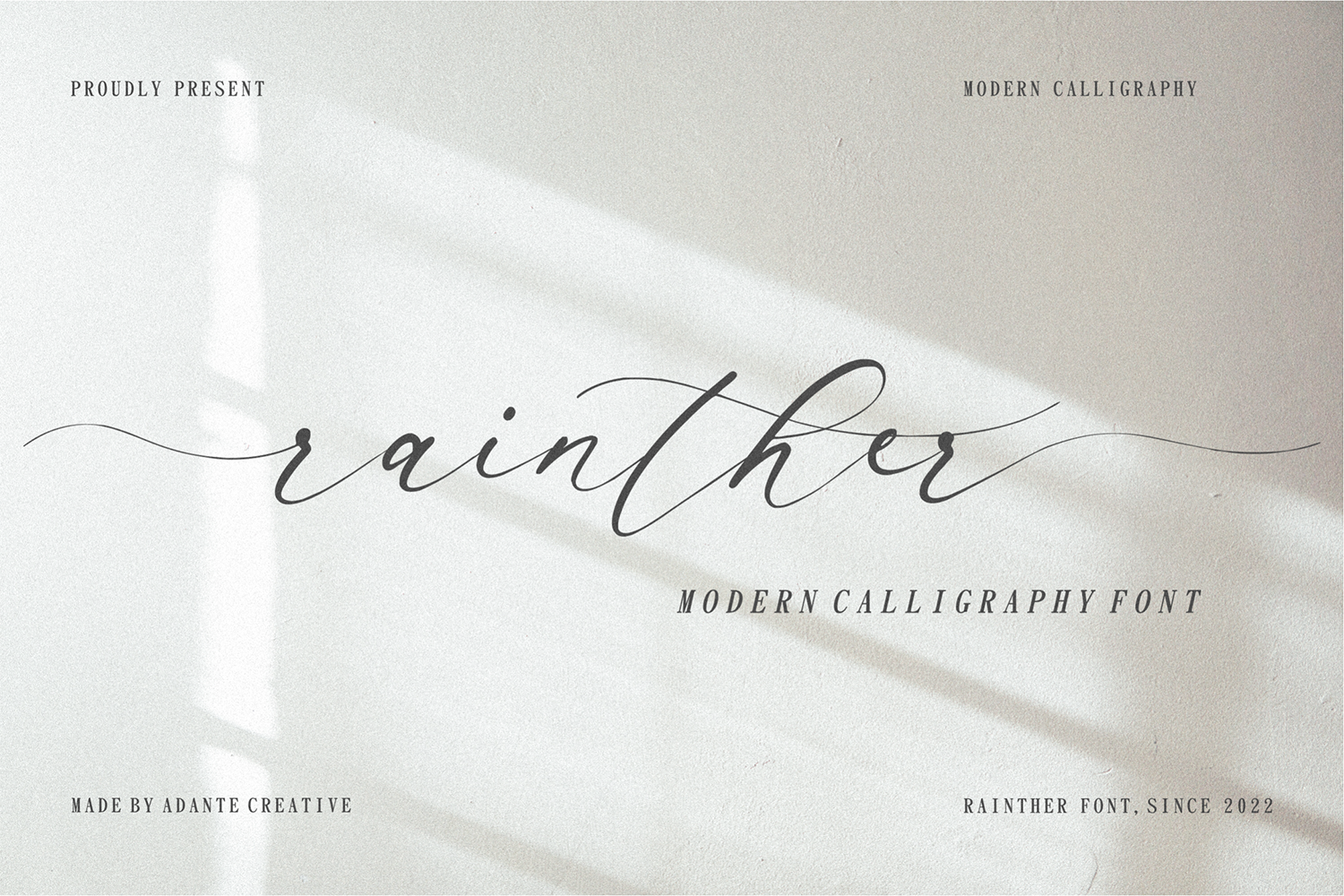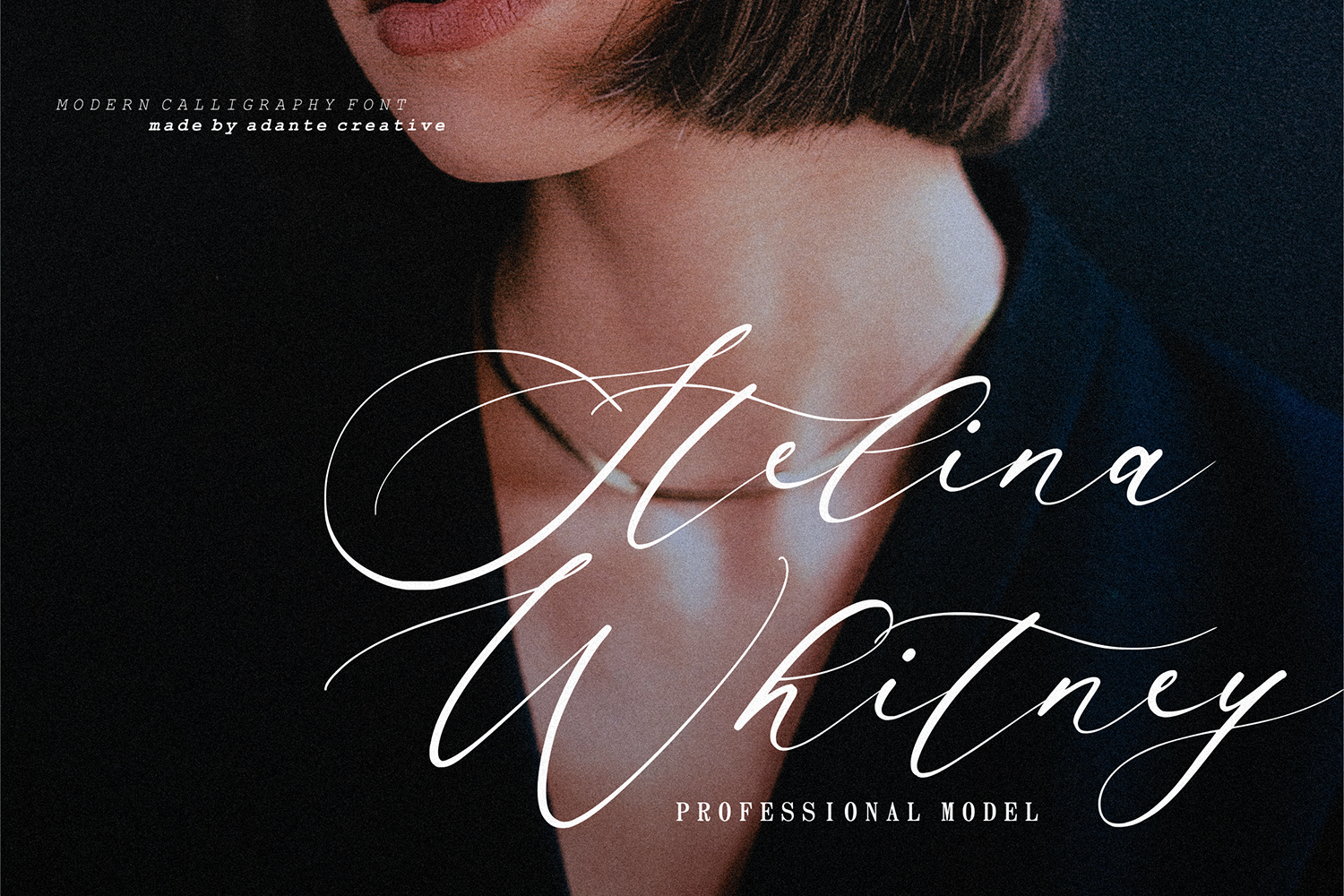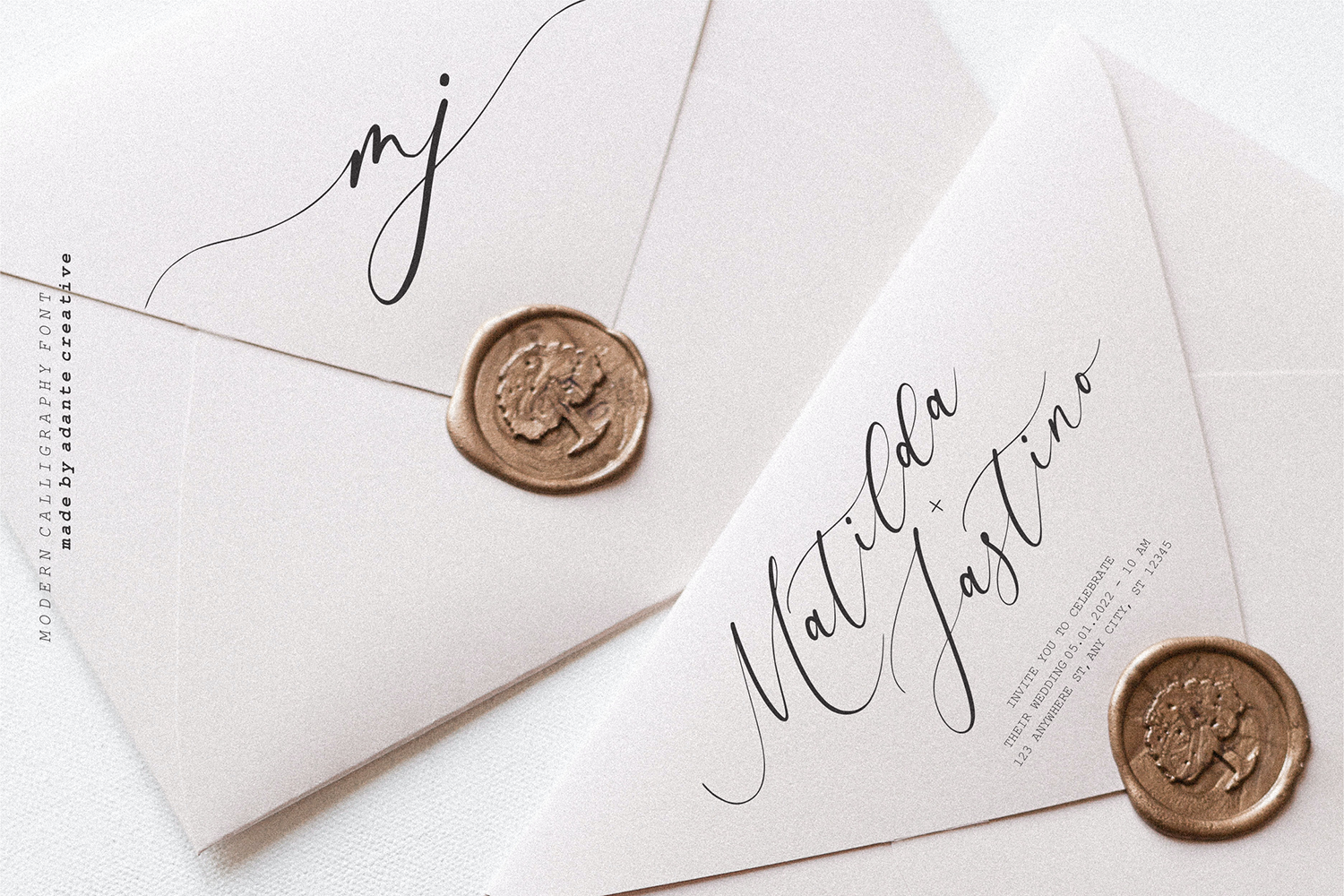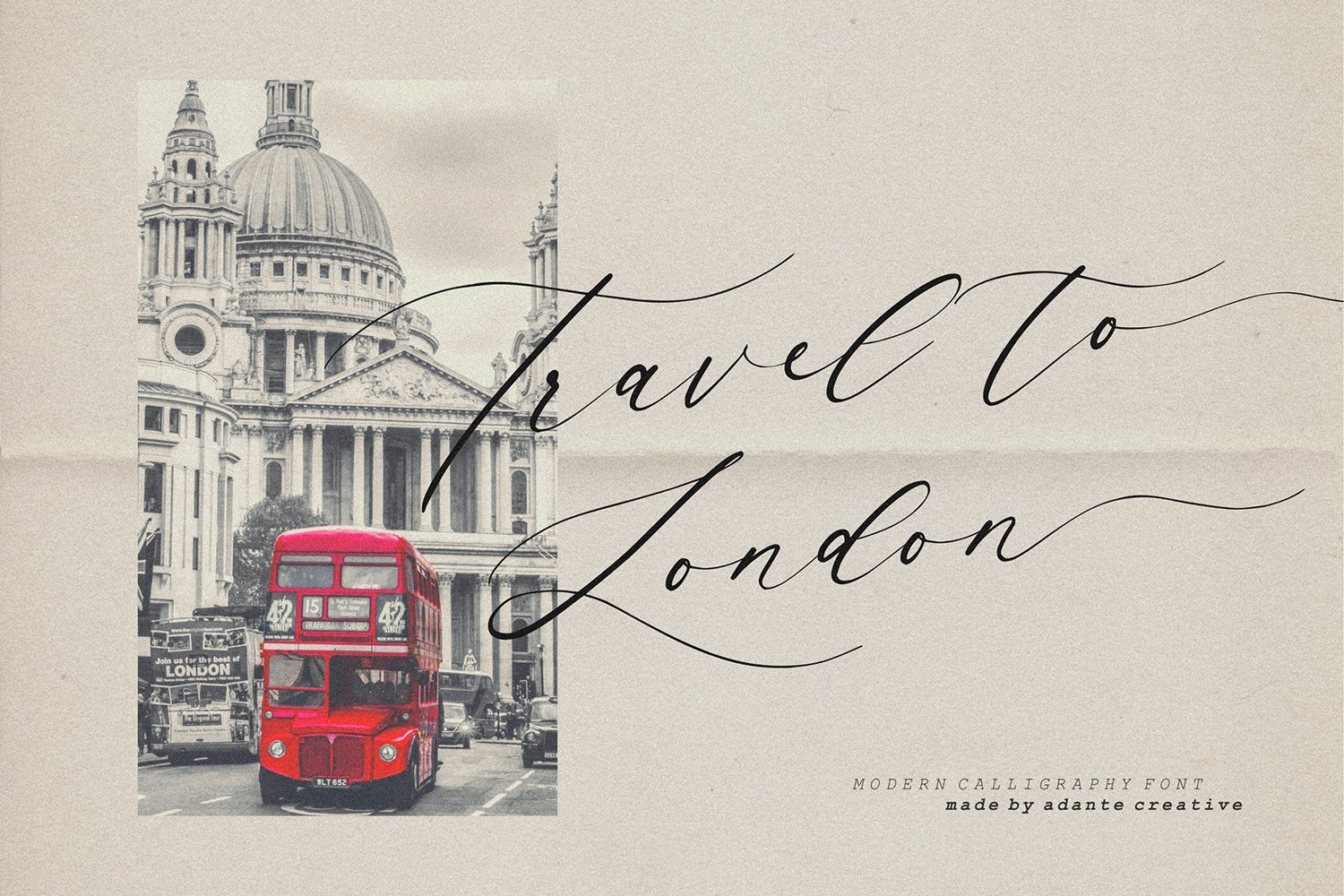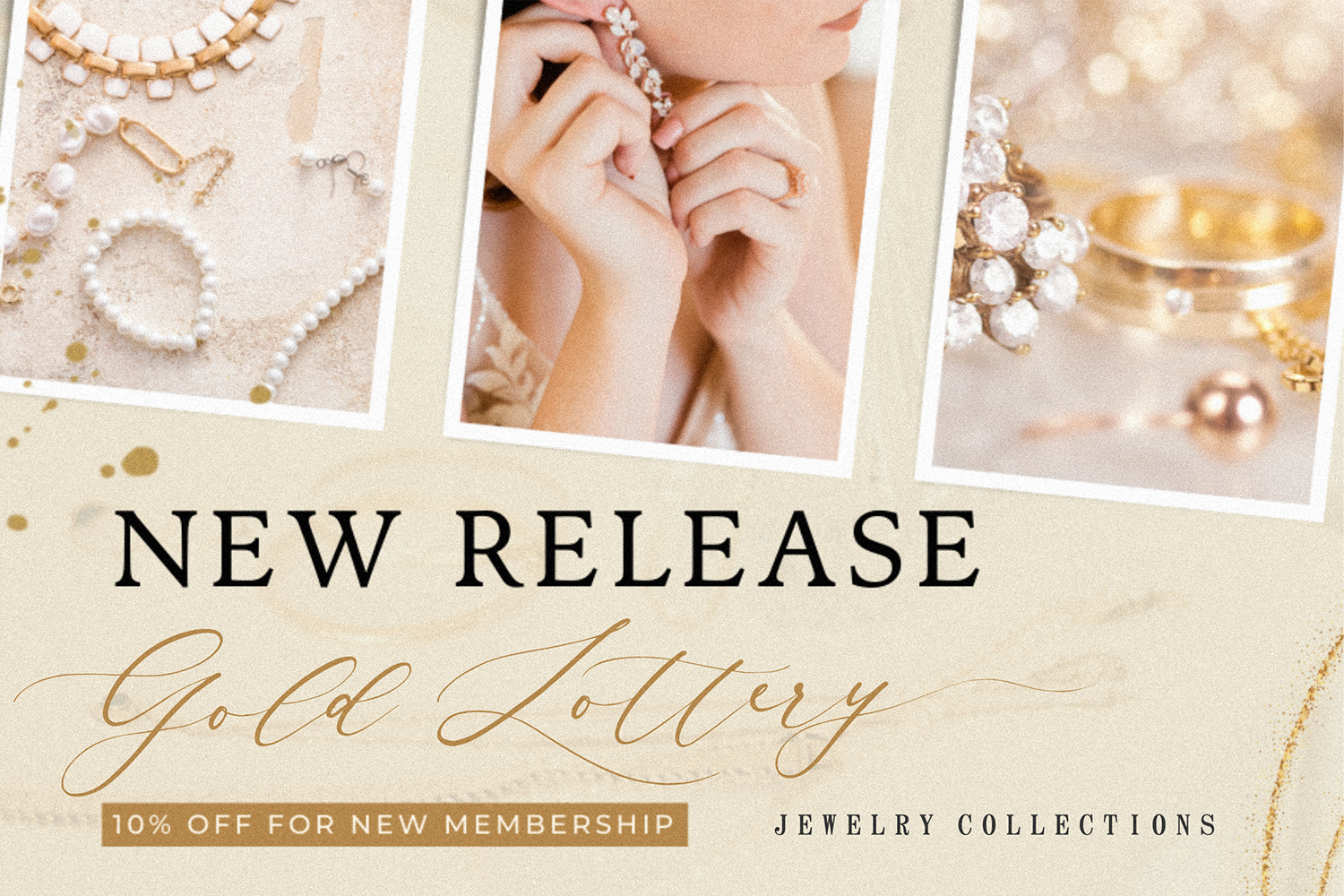
Rainther Free Font
Meet Rainther Free Font – an enchanting and timeless handwritten font that exudes charm. When it comes to crafting eye-catching logos, branding elements, and quotes, Rainther reigns supreme as the top choice. Each letter carries a distinct and captivating touch, breathing life into your designs effortlessly. Embrace the allure of Rainther and watch your creations flourish with its exquisite beauty. Don’t miss out on the chance to elevate your designs to new heights with this lovely handwritten font. This free typeface was designed by a talented Adante Creative. If you like it don’t forget to check out the full version.